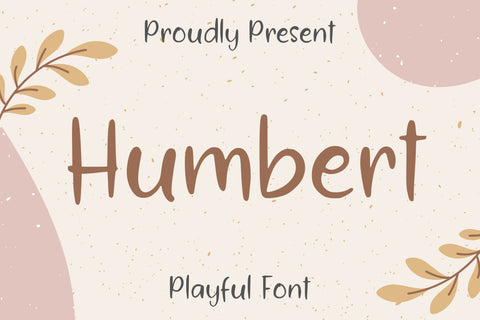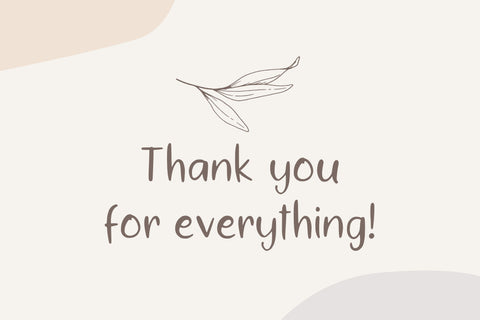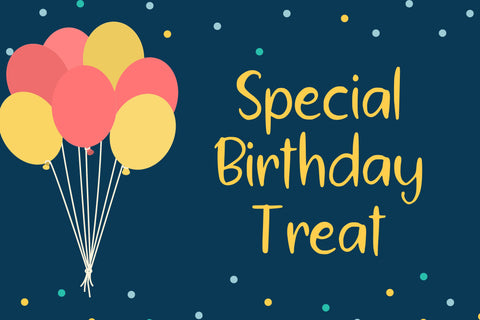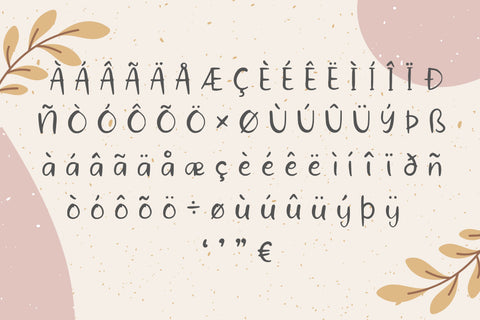
Humbert Font
Humbert is a playful and friendly font.
This font is perfect for svg designs, farmhouse signs, shirts, branding, ornaments, shirts, mugs, headings, blogs, logos, invitations and more!
Most accent characters included.